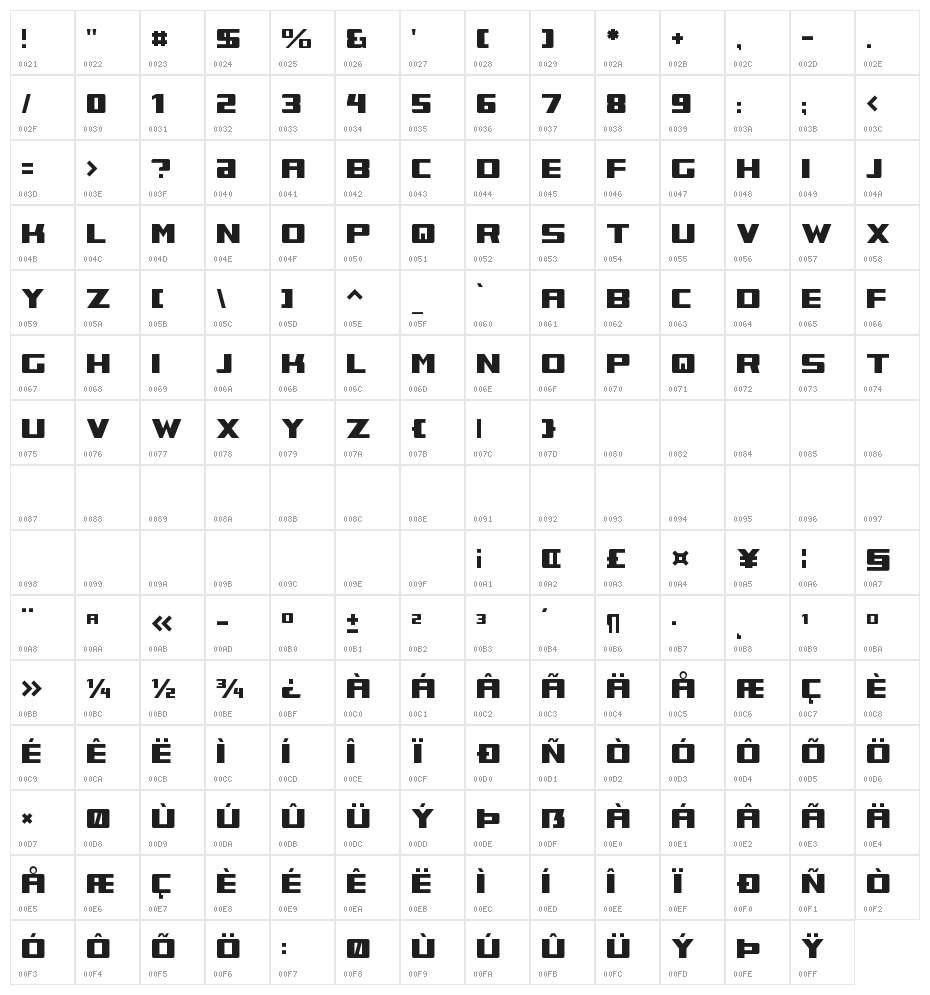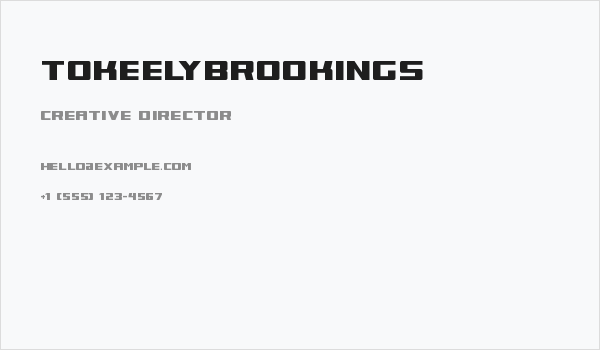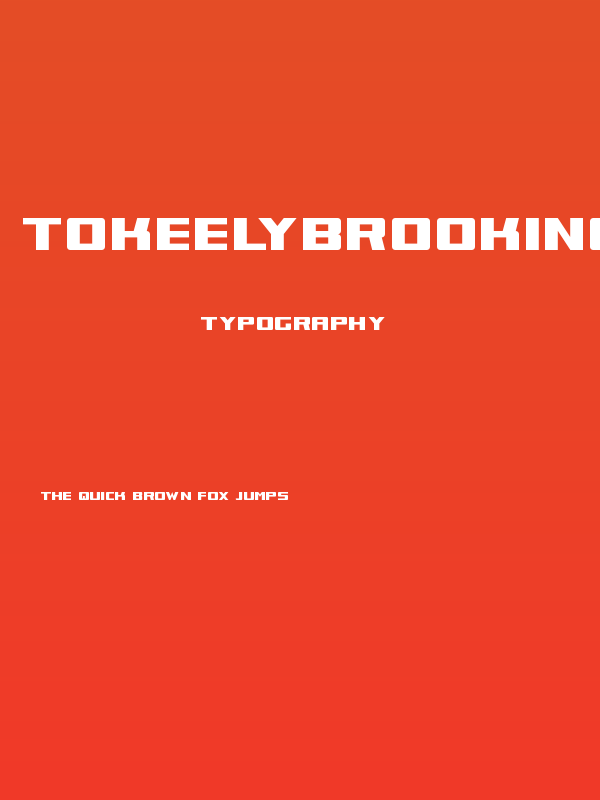
TokeelyBrookings Font
TokeelyBrookings Description
This font features a bold, geometric design with strong, angular lines and a modern aesthetic. The characters are uniformly wide, giving it a monospaced appearance, although it is not strictly monospaced. The uppercase letters are particularly striking, with a blocky, industrial feel that suggests strength and stability. The lowercase letters maintain the same boldness, ensuring consistency across different text cases. The numerals are equally robust, with a clear, easy-to-read style that complements the overall design. Special characters are designed with the same attention to detail, ensuring they fit seamlessly with the rest of the font. This font is ideal for projects that require a modern, impactful look.